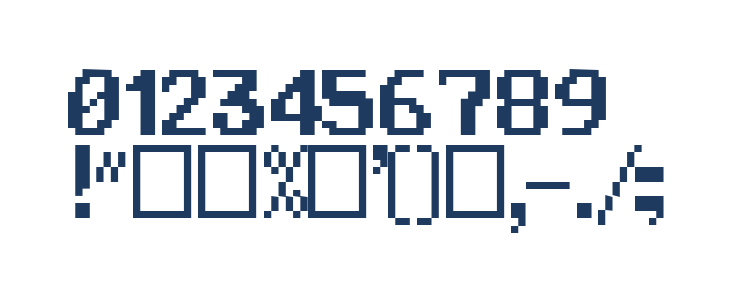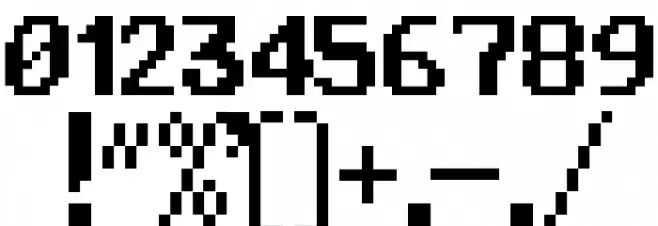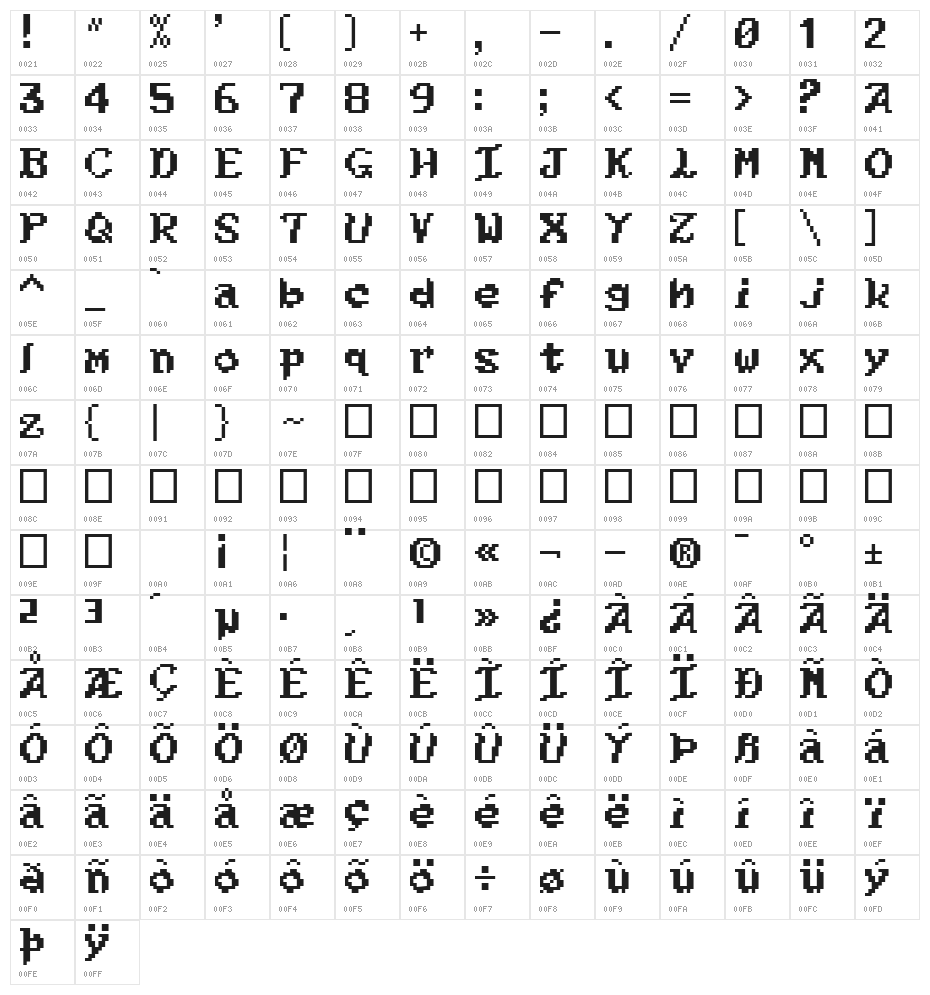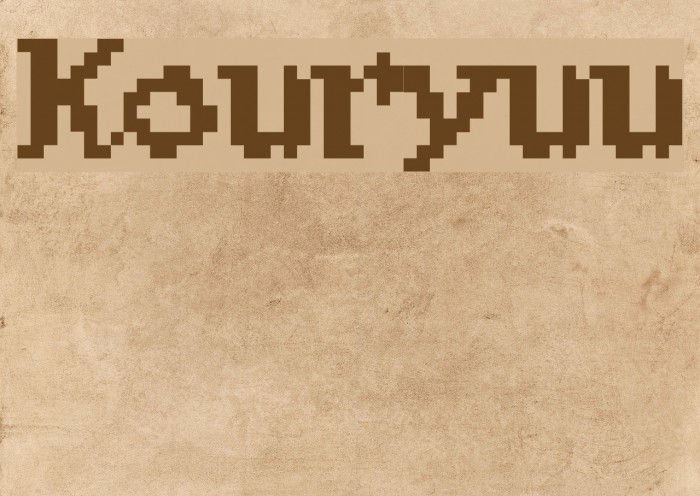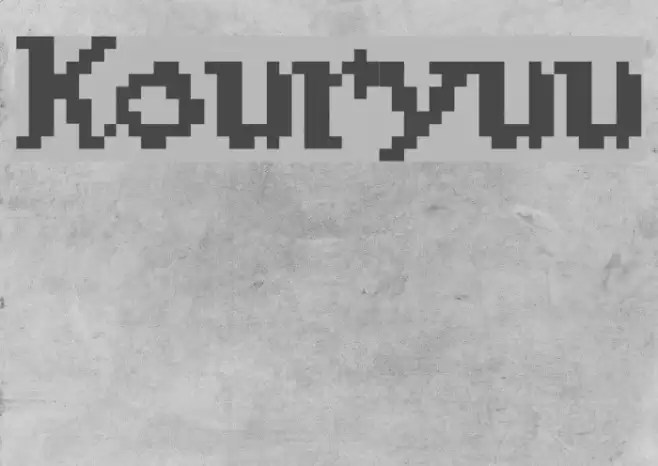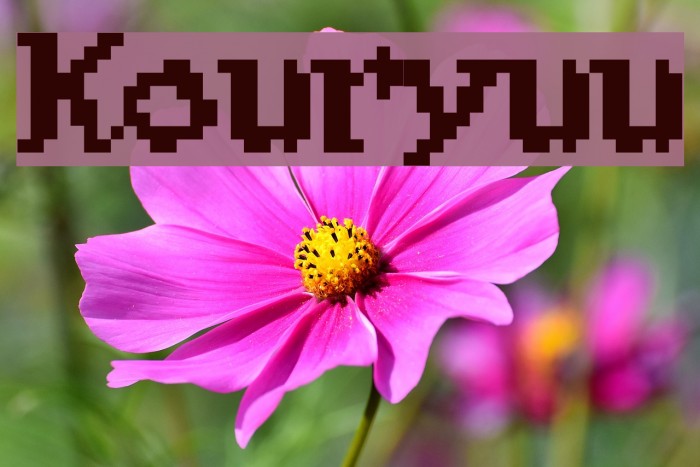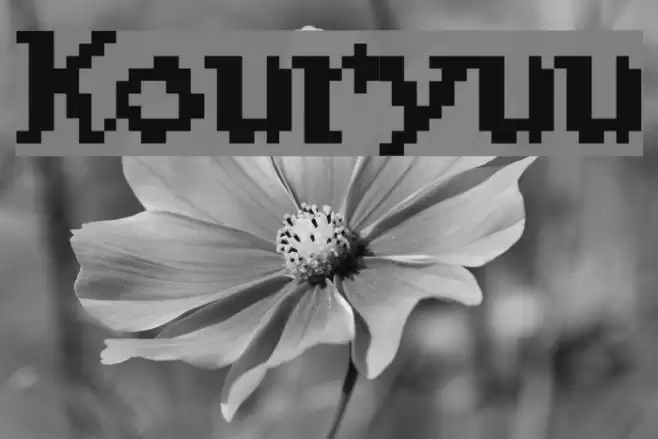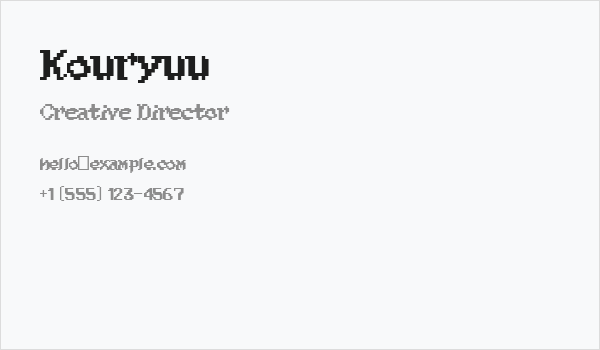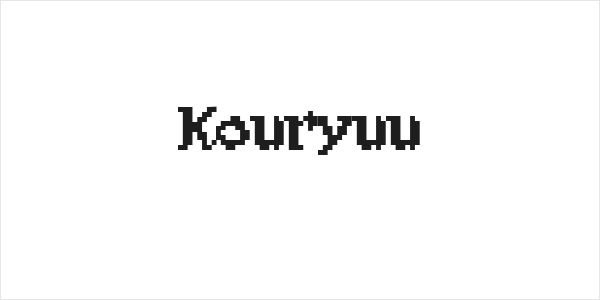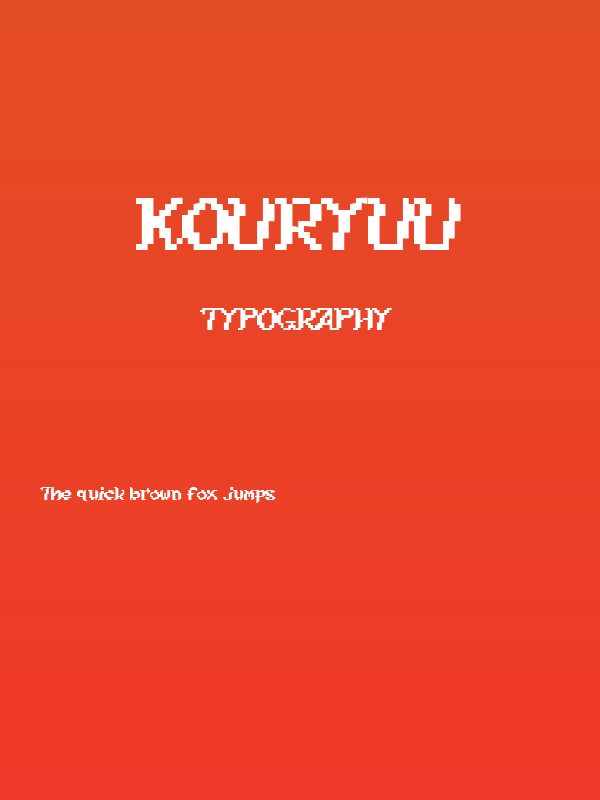
Kouryuu Font
Kouryuu Description
This font features a pixelated, blocky style reminiscent of early digital or video game typography. Each character is composed of distinct square blocks, creating a retro, 8-bit aesthetic. The uppercase and lowercase letters maintain a consistent height, while the numbers and special characters follow the same pixelated pattern. The design is bold and eye-catching, making it suitable for projects that aim to evoke nostalgia or a vintage digital feel. The uniformity in character size and shape contributes to a cohesive and structured appearance.
| Proposed Projects | Ideal for video game design, retro-themed posters, digital art, and any project seeking a nostalgic 8-bit look. |